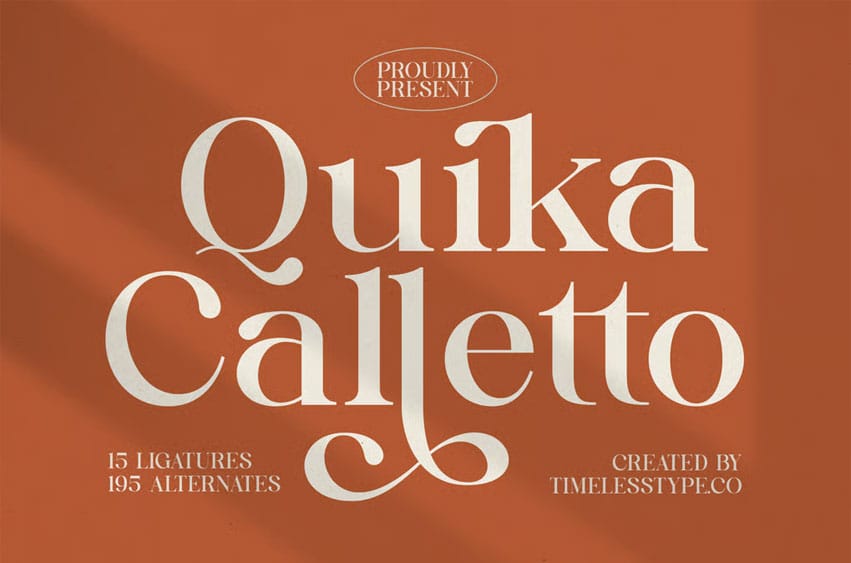
Quika Calletto Font is a refined modern serif display font that blends elegant curves with sophisticated contrast. Its sculpted terminals, graceful swashes, and artistic ligatures create a luxurious visual identity perfect for brand logos, editorial headlines, packaging, and high-end design projects.
With an extensive collection of alternates, Quika Calletto offers endless customization opportunities—allowing designers to craft expressive typography that feels tailored and premium. This serif balances classic charm and contemporary style, making it suitable for campaigns, boutique branding, and timeless visual storytelling.